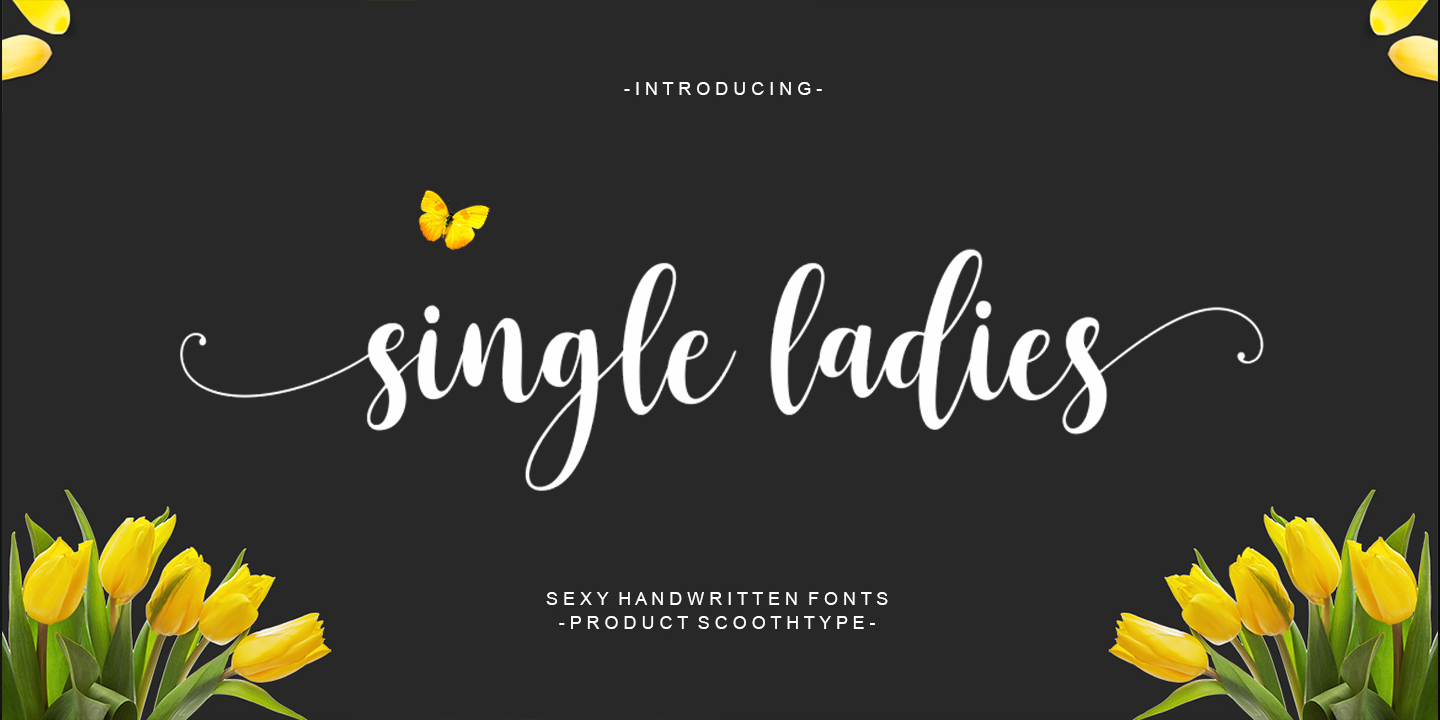
Single Ladies Font is perfect for female empowerment campaigns, girls' night out promotions, independent women's lifestyle brands, feminist movement materials, strong female character designs, women's networking events, self-love celebration graphics, and confident feminine communications.
This empowering script typeface is exciting because it celebrates female independence and self-confidence through bold letterforms that embody the strength, freedom, and unapologetic authenticity of women who define their own worth and create their own happiness.
The Single Ladies Font family includes regular and bold weights with empowering alternates, independence-inspired decorative elements, and confidence flourishes that enhance the strong, celebratory atmosphere of any female empowerment design project.
Empowering and confident, Single Ladies Font Free Download brings the strength and independence of self-assured women to contemporary typography through authentic feminine power. This inspiring font embodies the confidence and self-love that defines women who refuse to apologize for their standards and understand that being single is a choice, not a status to be fixed, making it perfect for brands celebrating female independence and authentic self-worth. Its bold character reflects the courage and determination required to build a fulfilling life on one's own terms and the joy that comes from embracing personal freedom and authentic self-expression, resonating with women who appreciate messages that celebrate independence over dependence. Perfect for women's lifestyle brands and empowerment organizations, this font ensures your message carries the feminine authenticity and independent spirit that strong women seek. Whether used for self-care campaigns or women's networking materials, Single Ladies Font Free Download delivers the female empowerment and confident independence that connects with women who understand that happiness comes from within and the best relationship is the one you have with yourself when you're living authentically.